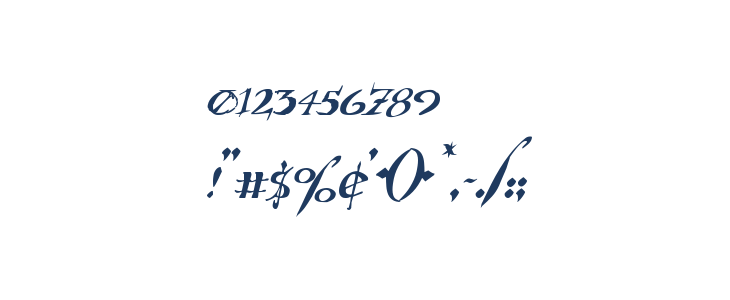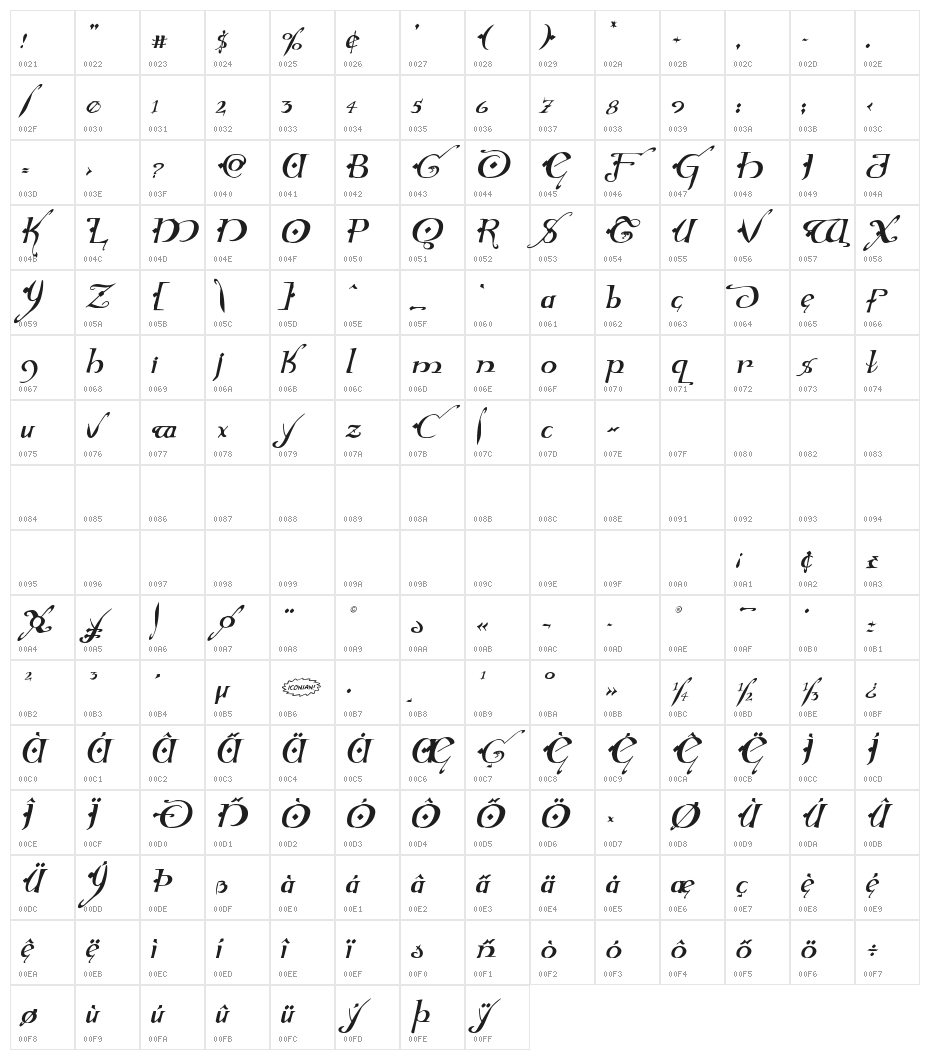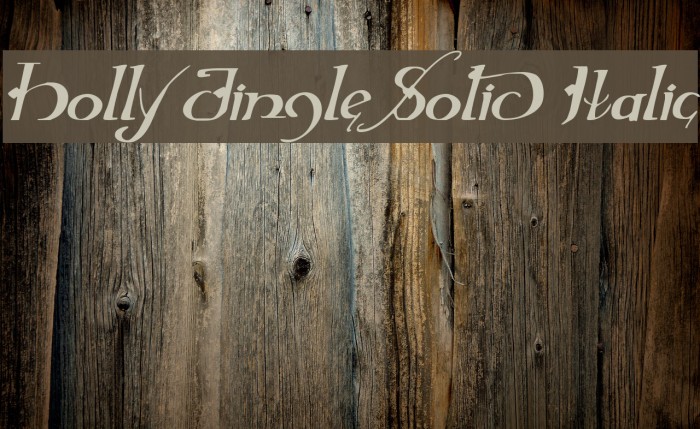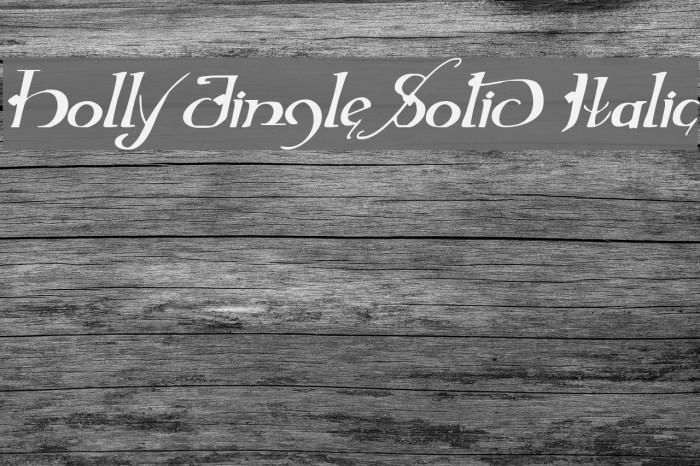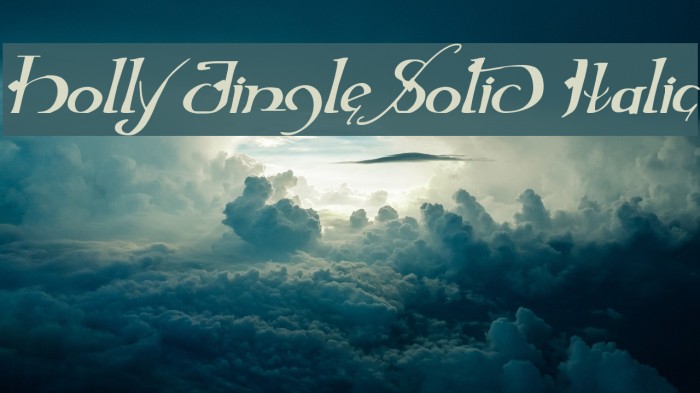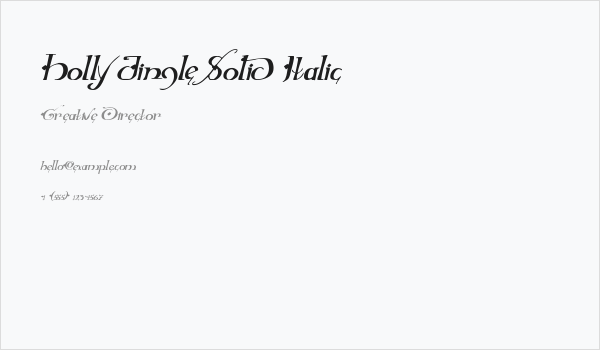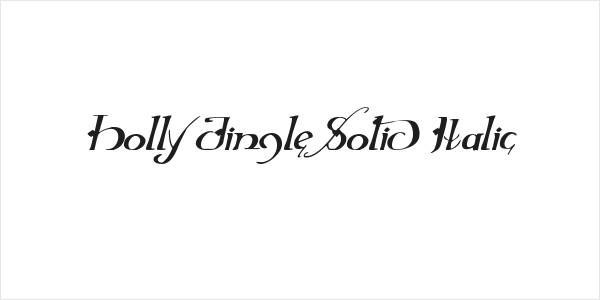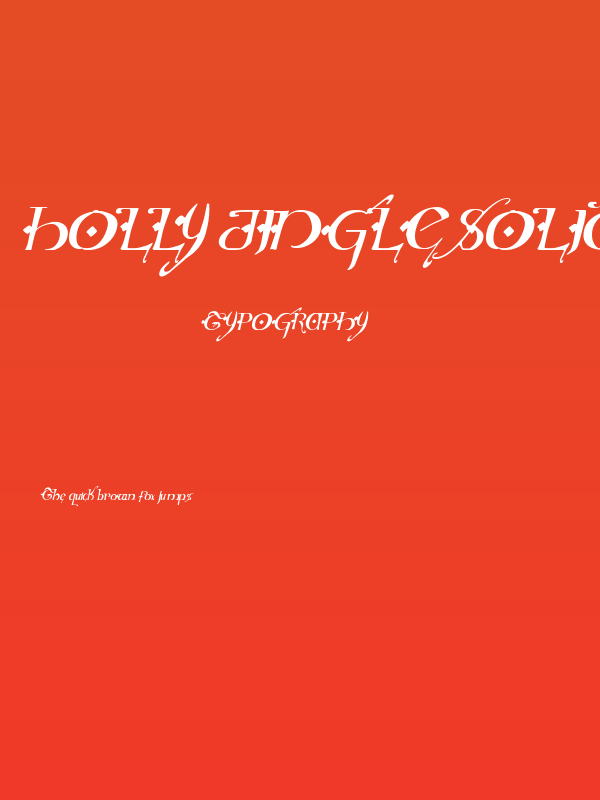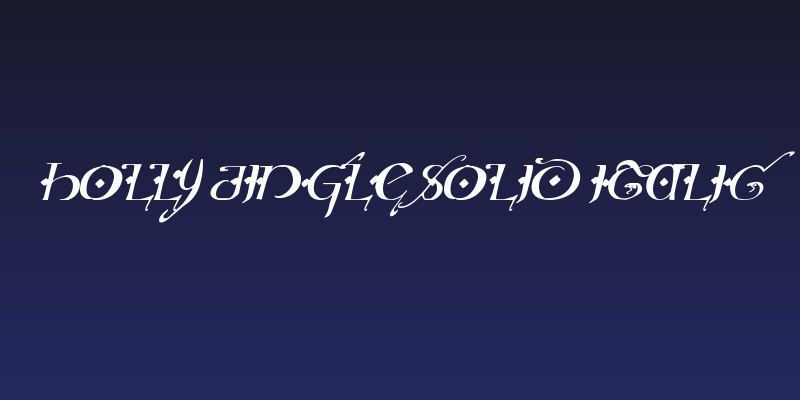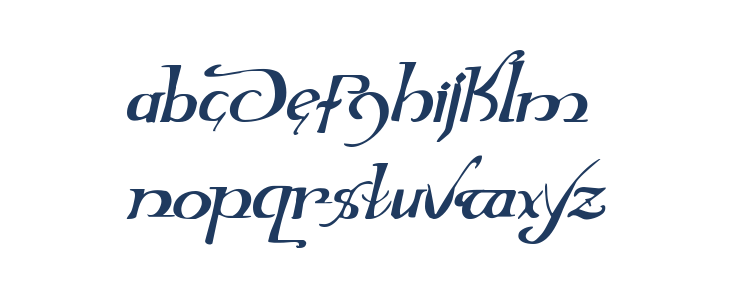
Holly Jingle Solid Italic Font
Holly Jingle Solid Italic Description
This font features an elegant and decorative style with a distinct calligraphic flair. The characters are adorned with intricate swirls and flourishes, giving it a festive and ornamental appearance. The italicized form adds a dynamic and flowing quality to the text, enhancing its visual appeal. The uppercase and lowercase letters maintain a consistent style, with the uppercase being more elaborate. The numerals and special characters follow the same decorative theme, making the font suitable for creative and artistic projects. The overall design is reminiscent of traditional calligraphy, yet it maintains a modern twist.